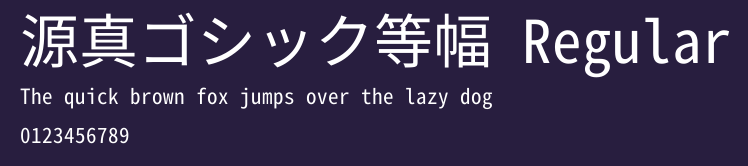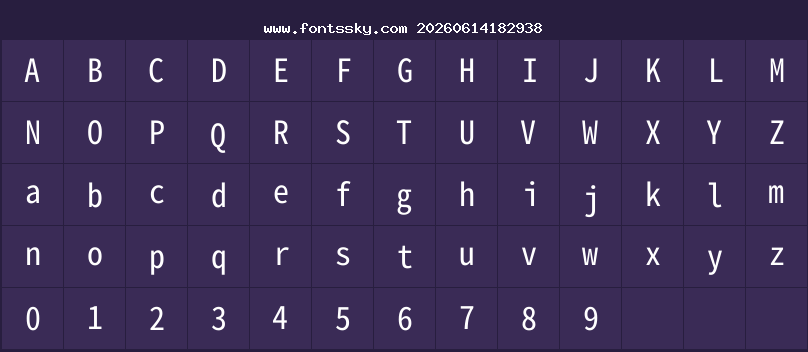
源真ゴシック等幅 Regular Preview
• Font Name: 源真ゴシック等幅 Regular
• Font ID: 1.002.20150607;MM;GenShinGothic-Monospace-Regular;MM
• Full Font Name: 源真ゴシック等幅 Regular
• Version: Version 1.002.20150607
• PostScript Name: GenShinGothic-Monospace-Regular
• Character Count: 17711
• Designer: [Source Han Sans] Ryoko NISHIZUKA 西塚涼子 (kana & ideographs); Paul D. Hunt (Latin, Greek & Cyrillic); Wenlong ZHANG 张文龙 (bopomofo); Sandoll Communication 산돌커뮤니케이션, Soo-young JANG 장수영 & Joo-yeon KANG 강주연 (hangul elements, letters & syllables) [M+ OUTLINE FONTS] Coji Morishita 森下浩司 (coz)
• Description: Dr. Ken Lunde (project architect, glyph set definition & overall production); Masataka HATTORI 服部正貴 (production & ideograph elements)
About 源真ゴシック等幅 Regular.ttf
源真ゴシック等幅 Regular.ttf is a modern, elegant sans-serif font designed for ultimate readability and visual harmony. Perfect for branding, headlines, web design, and print materials.